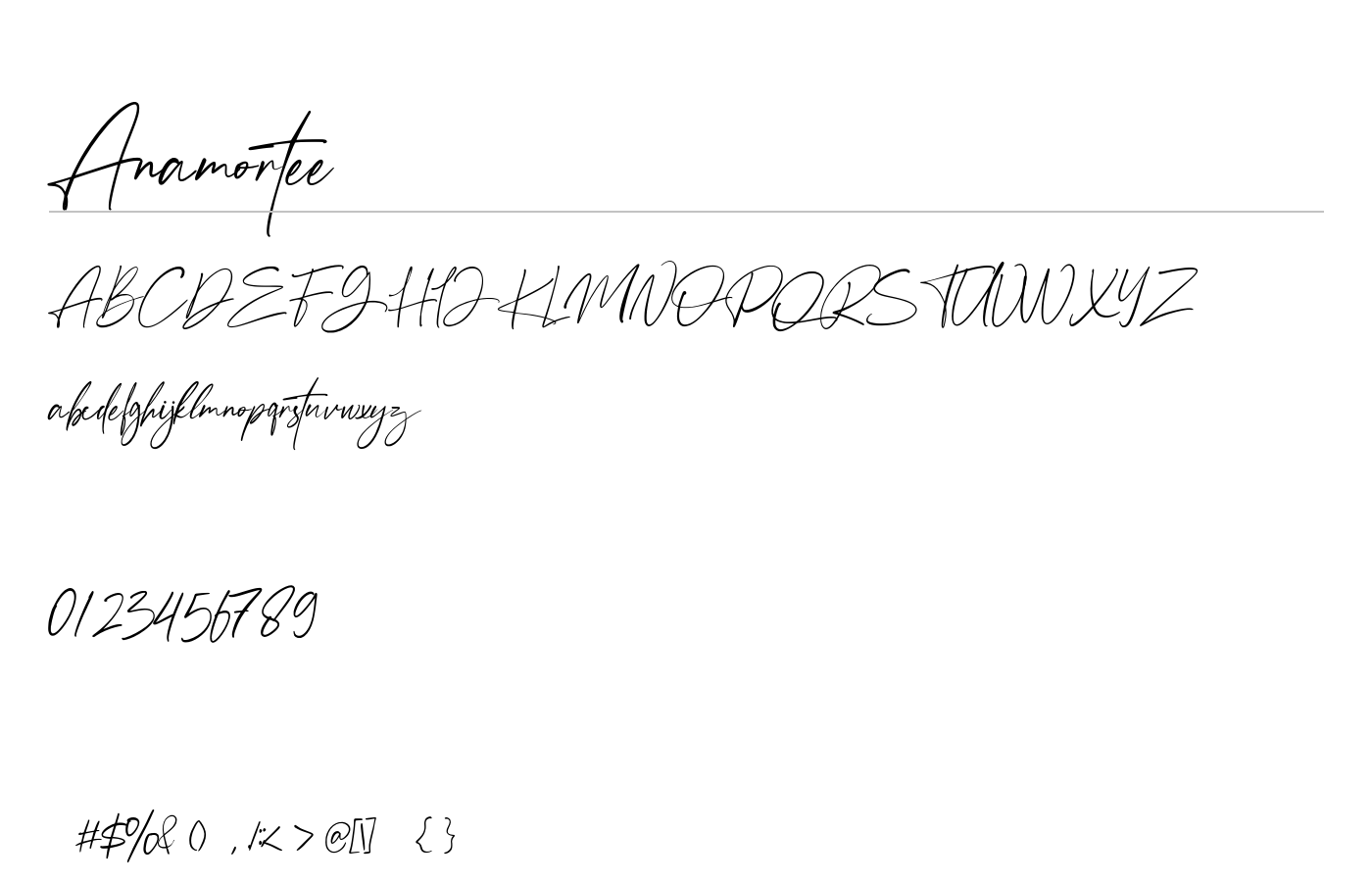
Anamortee is an elegant, script-style font characterized by its thin, flowing strokes that mimic natural handwriting with a modern twist. Its tall, slender letterforms and high contrast convey a graceful, sophisticated personality, making it ideal for fashion branding, invitations, and stylish logos where a personal yet refined touch is desired. This font works best in headlines or decorative text, adding an airy and artistic flair without sacrificing readability.
Anamortee Font
About Anamortee Font